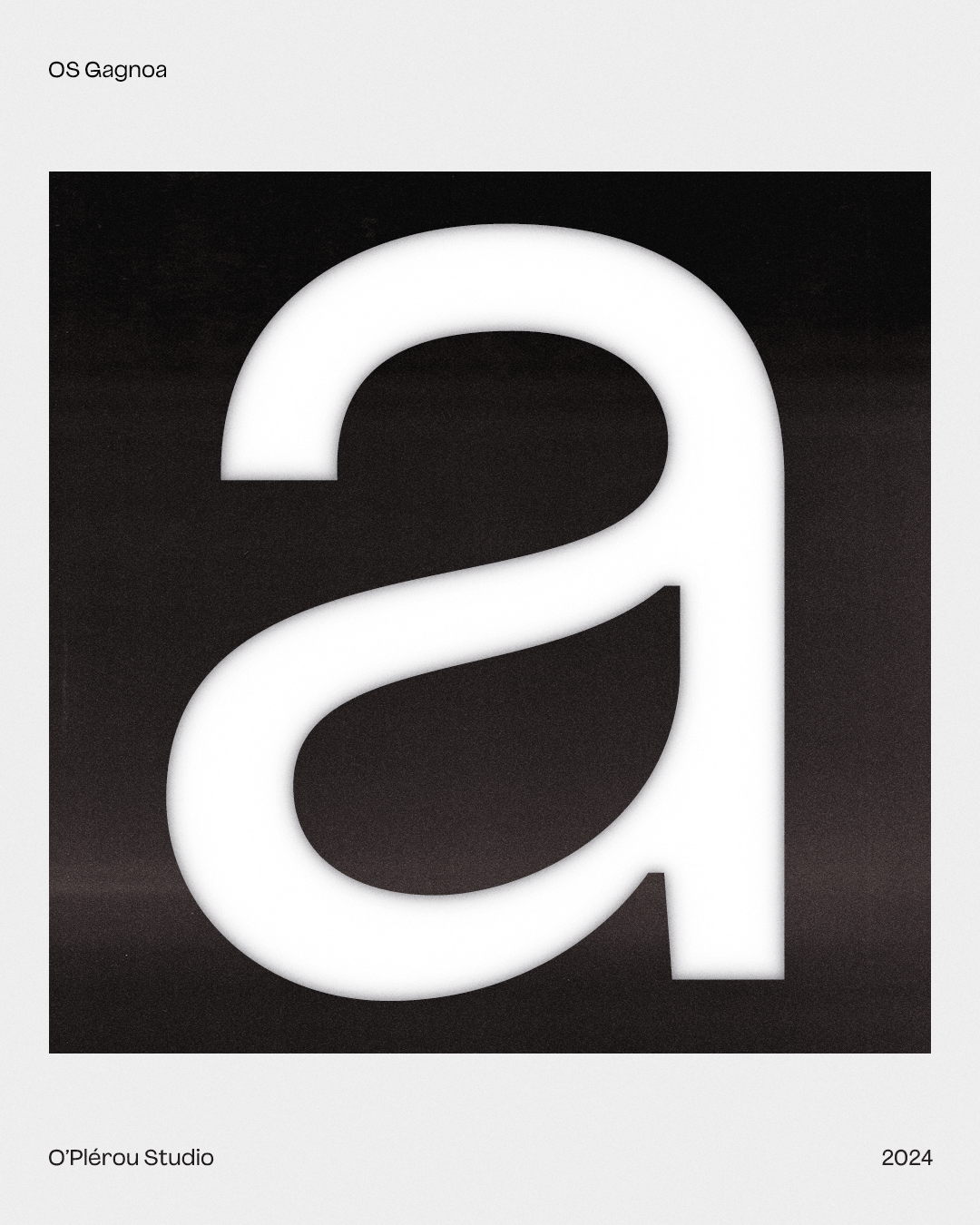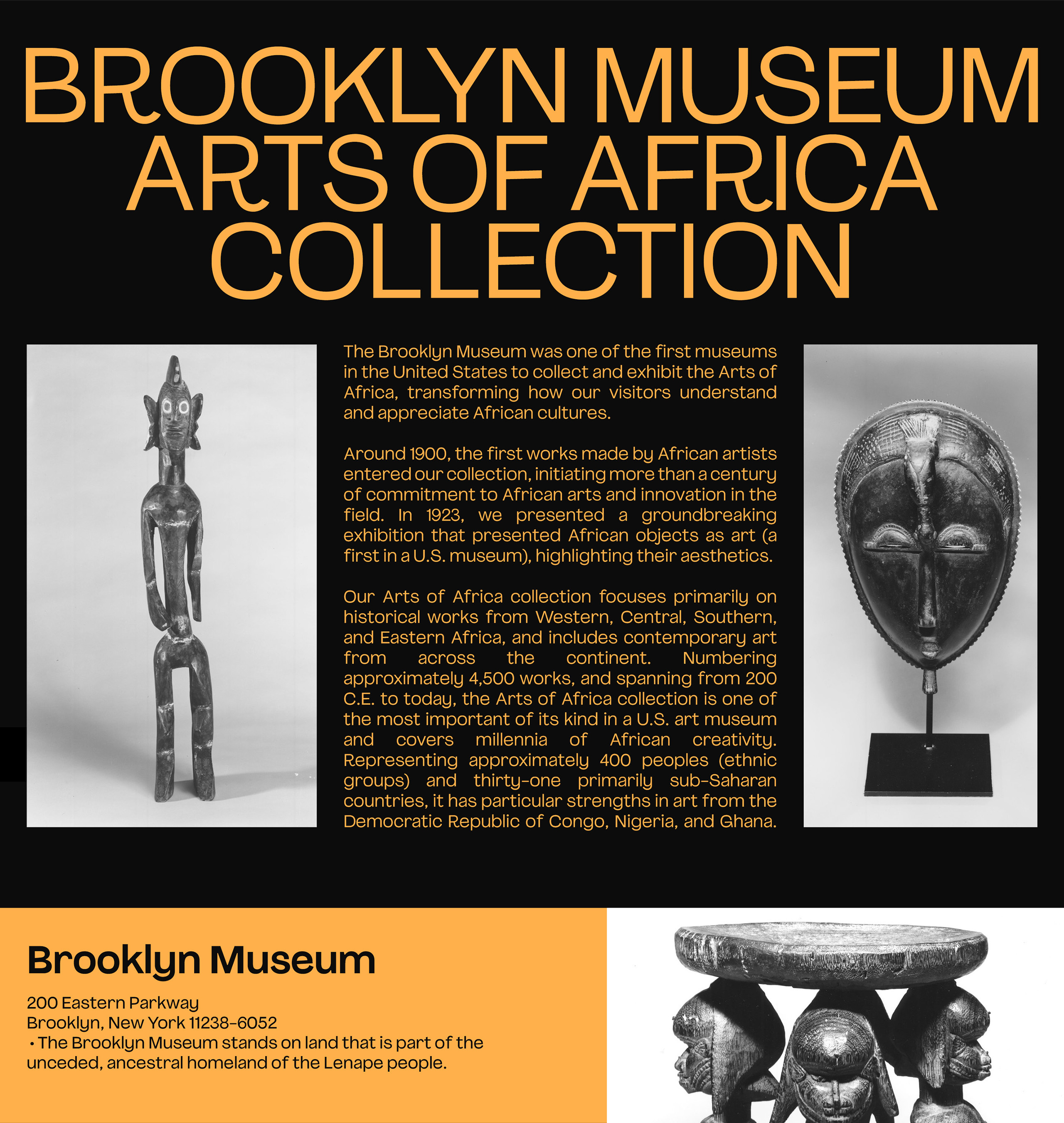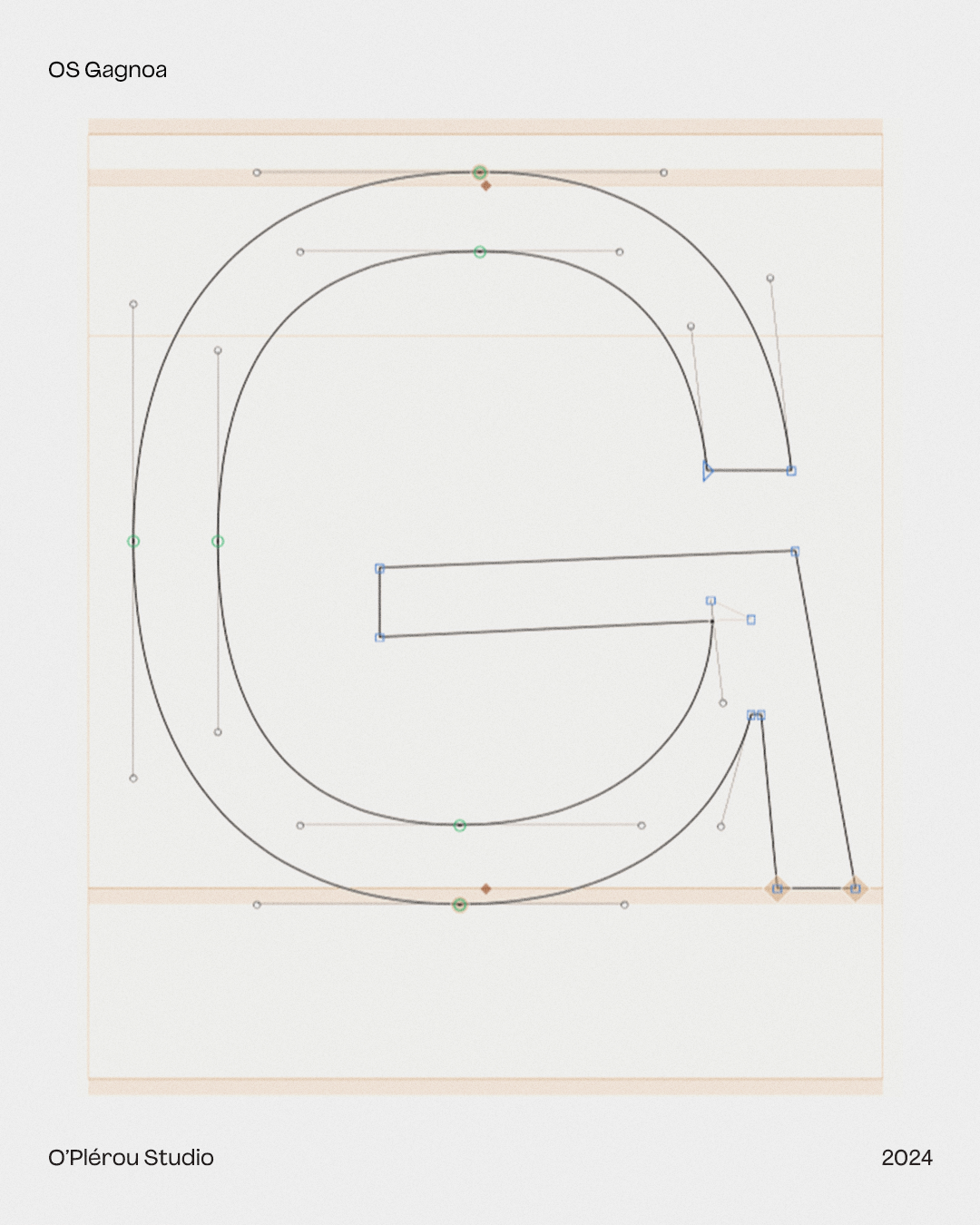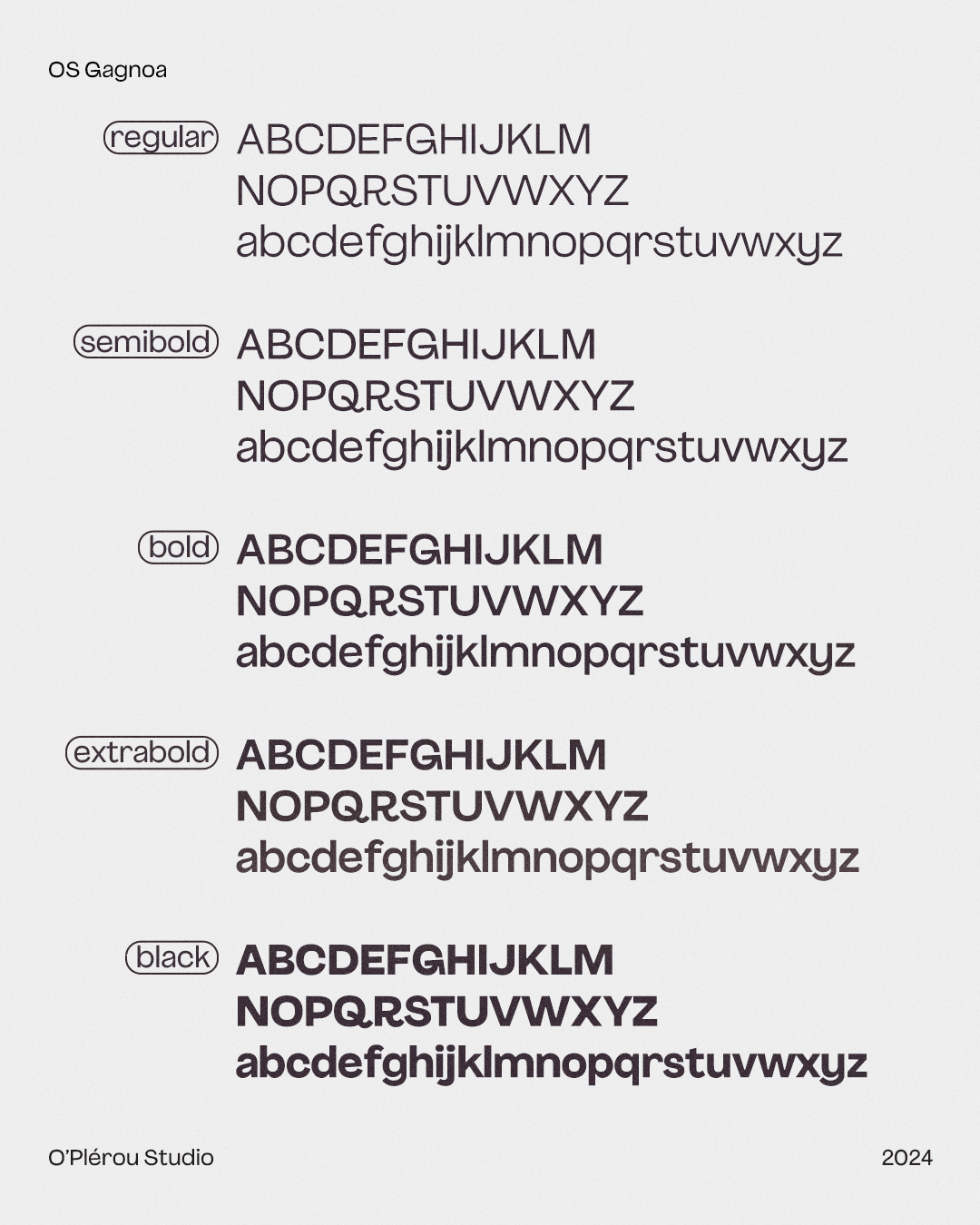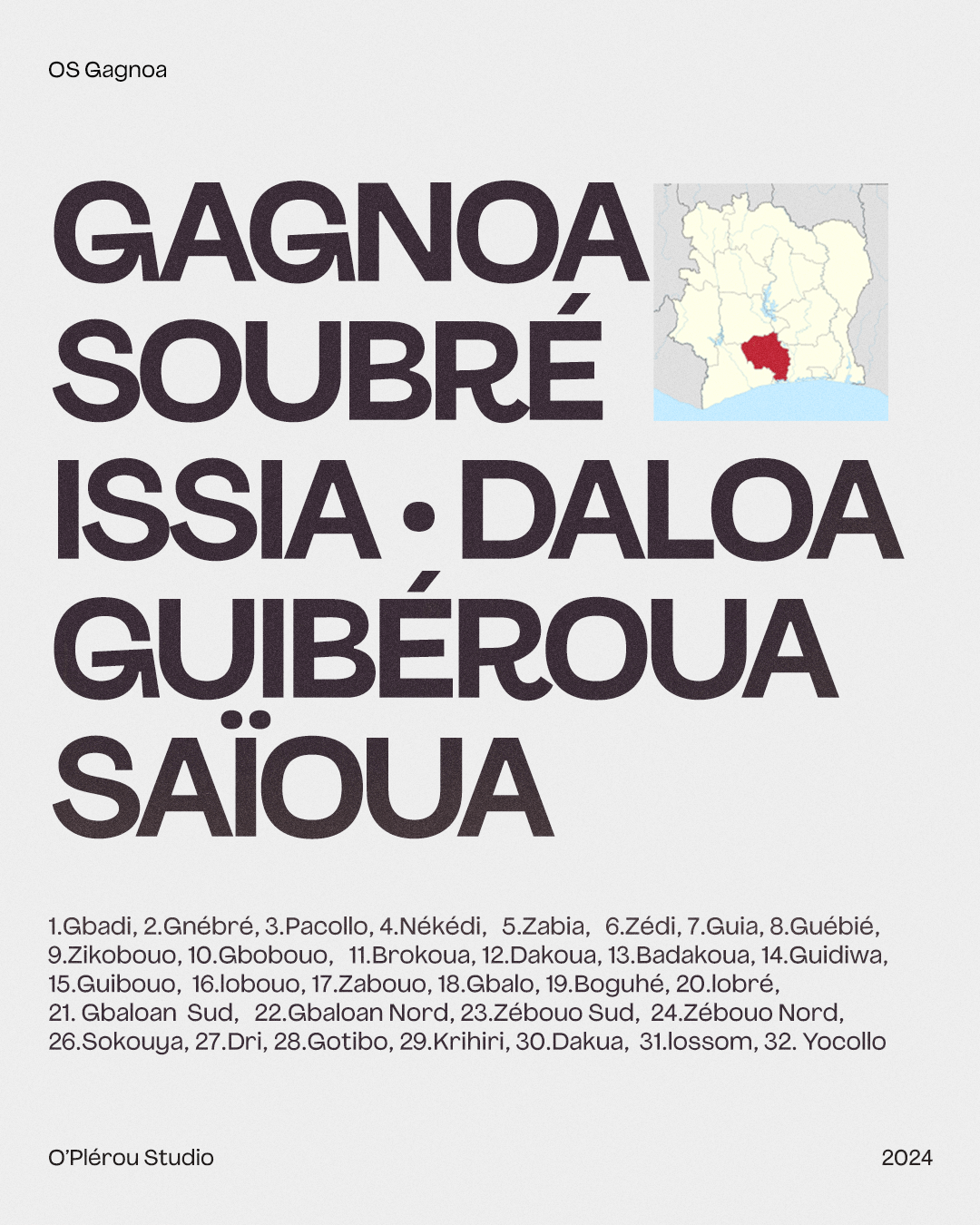
OS Gagnoa
Gagnoa is a grotesque typeface inspired by the beauty of being human. It’s a modern sans serif with a high x-height and subtle quirks hidden in the details: unaligned crossbars, discreet ink traps and mixed terminal angles, designed for medium and large sizes. Gagnoa is named after a city near the South of Côte d’Ivoire, in the region where I am from.
OS Gagnoa
Crafted with medium and large sizes in mind, Gagnoa excels in contexts where clarity and personality are paramount. Each detail is thoughtfully designed to balance contemporary aesthetics with a touch of individuality, making it a versatile choice for both digital and print applications as headlines, logos and graphic design projects.
Named after Gagnoa, a city in the southern part of Côte d’Ivoire and the region where I am from, this typeface balances subtle (or not) idiosyncrasies with a friendly, humanistic touch while embracing modern typographic principles.